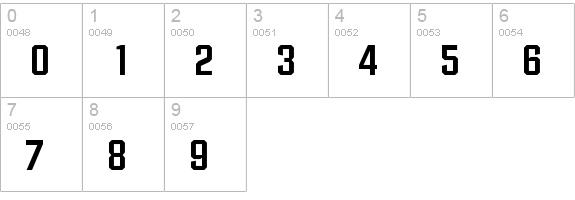
DiamanteSerial-Bold is a strong, high-contrast variant in the DiamanteSerial typeface family \xE2\x80\x94 well suited to headlines, attention-grabbing titles, and strong calls-to-action.
DiamanteSerial-Bold is a bold and impactful font that exudes elegance and sophistication. Its sharp lines and clean design make it perfect for creating eye-catching titles, headlines, and logos. With its strong presence and modern aesthetic, DiamanteSerial-Bold is sure to make a statement in any design project. What's even better is that DiamanteSerial-Bold is available for free download at FontsMarket.com. This means you can easily access this beautiful font and use it in your projects without any cost. Whether you're a designer looking to add a touch of luxury to your work or a business owner in need of a standout branding element, DiamanteSerial-Bold is the perfect choice. Download it now and elevate your designs to the next level!